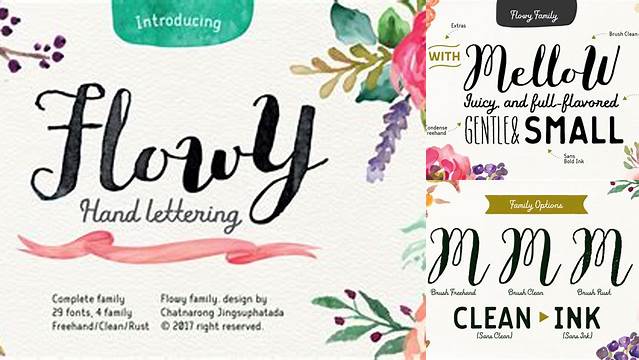
Hey there, font fanatics! đ Are you on the hunt for some seriously gorgeous, freehand-style fonts that just flow? You're in the right place! This article is your ultimate guide to scoring amazing flowy script freehand fonts that you can download without spending a single penny. We're talking about fonts that look like they were penned by a master calligrapher, adding a touch of elegance, personality, and that special handcrafted feel to all your projects. Whether you're designing invitations, crafting social media posts, creating logos, or simply jazzing up your personal documents, these fonts will be your new best friends. We'll explore a variety of styles, from delicate and refined to bold and playful, ensuring you find the perfect match for your creative vision. So, buckle up, and let's dive into the wonderful world of flowy script freehand fonts and how to get them for free! đ
1. The Allure of Flowy Script Freehand Fonts: Why They're So Popular
Alright, let's get real â what is it about flowy script freehand fonts that makes them so darn appealing? Well, guys, these fonts are like the superheroes of the design world. They've got the power to transform the mundane into the magical. The secret sauce? They mimic the beauty and grace of handwritten calligraphy. This adds a personal touch and a sense of authenticity that's hard to replicate with other font types. It's the kind of font that makes people stop and say, âWow, thatâs beautiful!â
Think about it. A perfectly crafted flowy script freehand font can evoke a feeling of elegance, romance, and sophistication. They're often used in wedding invitations, adding a touch of class and formality. On the flip side, they can also be playful and informal, perfect for branding or creating friendly and welcoming designs. The versatility of these fonts is what makes them so popular. They can be adapted to suit a wide range of design projects, from websites and blogs to greeting cards and posters. Theyâre the perfect choice when you want your design to stand out, communicate a personal touch, and make a lasting impression. The organic feel, the unique flourishes, and the way the letters connect make these fonts incredibly eye-catching and memorable. This isnât just about choosing a font; it's about choosing a style, a personality, and a way to connect with your audience on a deeper level. So, as you can see, the popularity of these fonts is totally justified. đ
The Impact of Flowy Script on Branding and Design
Now, let's talk about the real impact of using a flowy script freehand font in your branding and design. In a world saturated with visual content, itâs essential to find ways to stand out. Using a beautiful, flowing script font can be your secret weapon. When incorporated into a logo, a well-chosen font can instantly communicate your brand's personality. Is your brand sophisticated and elegant? A delicate script font can convey this. Aiming for a more playful and approachable image? Opt for a more whimsical, freehand style. The right font can create a strong first impression and set the tone for your entire brand identity.
Beyond logos, these fonts can be incredibly effective in various design applications. Consider website headers, social media graphics, and marketing materials. A touch of script font can add a touch of elegance and intrigue, drawing the eye and encouraging engagement. This is especially important in an age where consumers are bombarded with information. A unique and memorable font can make your brand stand out and help your message resonate with the audience. It's about creating a cohesive and consistent brand identity. By carefully selecting fonts and using them throughout your design, you can establish a recognizable visual style that reflects your brand values and personality. The key is to find the perfect balance. Use the font strategically, not to overwhelm the design. Let the font enhance your message and make it more appealing, not distract from it. Remember, the font should be an extension of your brand, a way to connect with your audience and leave a lasting impression. đ
Then thereâs DaFont, which is a massive font directory where you'll find an overwhelming variety of free fonts, including tons of flowy scripts. Keep in mind that while DaFont offers a vast selection, you should always double-check the license for each font before you use it. Another great option is FontBundles.net, which often has free font bundles, including some incredible script fonts. They also regularly offer limited-time freebies. Keep your eyes peeled for those! Remember to always check the terms of use for each font. Some fonts are free for personal use only, while others are free for both personal and commercial use. Always read the fine print to avoid any copyright issues. Happy hunting!
Navigating Font Licensing: Understanding Free vs. Commercial Use
Okay, guys, let's talk about the nitty-gritty of font licensing. This is super important when you're downloading free flowy script freehand fonts. Understanding the terms of use is key to avoiding any legal headaches. In essence, font licensing dictates how you are allowed to use the font. The two main categories you'll encounter are 'personal use' and 'commercial use.' 'Personal use' means you can use the font for non-commercial projects, such as personal invitations, scrapbooks, or your own personal blog. You usually canât use it for anything that makes you money or generates revenue.
'Commercial use,' on the other hand, means you can use the font for projects that are intended to generate profit, such as logos for your business, marketing materials, or client work. The good news is that many websites offer free fonts that are available for commercial use. But always double-check the license before you use a font in a commercial project! You can usually find the license information on the download page or in the font's documentation. If a font license isn't clear, or if youâre unsure, itâs always best to err on the side of caution and contact the font creator or website for clarification. Paying attention to font licensing protects both you and the font designer. It helps ensure that designers are compensated for their work and that you avoid any potential legal issues down the line.
3. Characteristics of a Great Flowy Script Freehand Font
Alright, what makes a flowy script freehand font truly great? What are the key features that separate the gems from the also-rans? Let's break it down. First and foremost, it's all about readability. Even the most beautiful script font is useless if nobody can actually read it. Look for fonts that strike a balance between artistic flair and easy legibility. The letters should be distinct enough that they can be quickly deciphered, even at smaller sizes.
Readability and Legibility: The Cornerstones of Good Font Design
Readability and legibility are the holy grails of font design. Readability refers to how easily the font allows words and phrases to be recognized, and legibility is about the clarity of individual letters. A great flowy script freehand font needs both! Look for fonts that offer a good contrast between thick and thin strokes. This adds visual interest and makes the letters easier to differentiate. Ensure that the x-height (the height of the lowercase 'x') is not too small, which can make the letters appear cramped and hard to read. Consider the spacing between letters. If the spacing is too tight, the words will appear to run together. If it's too loose, the text may look disjointed. The best fonts have optimized kerning (the spacing between specific letter pairs) to ensure that each word flows beautifully and is easy on the eye. It's also vital to test the font in different sizes and contexts. Does it still look good on a small business card? How about a large poster? Always check to make sure the font performs well across a variety of applications.
Unique Features: Flourishes, Swashes, and Letter Connections
Beyond readability, what other features make these fonts so special? Flowy script freehand fonts often have a host of unique characteristics that add personality and flair. Flourishes are ornamental additions that extend from the letters, adding a touch of elegance and visual interest. Swashes are decorative strokes that can be added to the beginning and end of letters, creating a more dynamic look. Letter connections, where letters are seamlessly joined together, are a key feature of script fonts, contributing to the sense of flow and fluidity. Look for fonts that offer a variety of stylistic alternates. These are different versions of letters, such as alternative 'a's or 'g's, that you can swap out to create a more unique look. Some fonts have OpenType features, which enable automatic ligatures (letter combinations) and contextual alternates, meaning the font automatically changes the appearance of letters based on their surroundings to improve the overall look. Fonts that incorporate these features give you the flexibility to create stunning, customized designs. When choosing, consider what effects these features create. Are you looking for a classic, timeless style or a more modern, edgy look?
4. Designing with Flowy Script Fonts: Best Practices
So, youâve found some amazing free flowy script freehand fonts. Now, how do you use them effectively? Let's get into some design best practices. First things first: choose your font wisely. Consider the overall tone and message of your project. Does the font match the vibe? It might be best to have a clear idea of the feeling you want your project to evoke before you start choosing your fonts. A playful and whimsical font might be perfect for a childrenâs birthday invitation, but it may not be the best choice for a corporate report.
Pairing Flowy Scripts with Complementary Fonts
One of the most crucial aspects of designing with flowy script freehand fonts is pairing them with complementary fonts. A script font, used alone, can sometimes be overwhelming. Pairing it with a sans-serif or a serif font can provide a balance of visual interest and readability. The key is to find fonts that work well together and create a cohesive design. When choosing a pair, consider the contrast between the fonts. Do the styles complement each other? Pairing a delicate script font with a bold sans-serif font can create a striking contrast, making the script text stand out. If you're going for a more subtle look, you might pair a script with a serif font that shares similar characteristics. The font pairing shouldnât compete for attention. The secondary font is often used for headlines, body text, and supporting information. It should be legible and easy to read, creating a clear hierarchy of information. There are loads of resources online that can help you find perfect font pairings. Check out websites like Canva, which suggest font pairings. These are usually based on design principles such as contrast, harmony, and balance. Ultimately, experimenting with different combinations is key to finding the perfect match. Play around with various fonts, and see what works best for your specific project.
Avoiding Common Design Mistakes with Script Fonts
Letâs discuss some common design mistakes to avoid. One big no-no is overusing your flowy script freehand font. These fonts are fantastic, but they can be hard to read if used in large blocks of text. They are best used for headlines, titles, short quotes, or emphasis. Another mistake is choosing a font that is hard to read at smaller sizes. This is why testing the font in various sizes and contexts is crucial before using it in a project. Always make sure your script font is legible. Always test the font in different color combinations. Some fonts are easier to read on certain backgrounds. Ensure there is enough contrast between the text and the background to make it easily readable. Avoid overly ornate fonts that are difficult to read. Keep it simple and clean. It's also important to ensure that you properly use kerning and tracking. If the letters are squished together or too far apart, the text will look unprofessional. Pay attention to these details! Remember, simplicity is key. Let the font enhance your message, rather than overshadowing it. By avoiding these common mistakes, you can ensure your designs look professional and polished. đ
5. Installing and Using Free Flowy Script Fonts on Your Devices
So, you've downloaded some awesome free flowy script freehand fonts! Now, how do you actually get them onto your computer and start using them in your projects? Donât worry, itâs easier than you might think. The process is slightly different depending on your operating system (Windows or Mac), but the general steps are similar.
Installing Fonts on Windows and macOS
For Windows users, after downloading a font, you'll usually receive a zipped file. You'll need to extract the font files from the zip folder. Once extracted, the font files will typically be in either .ttf (TrueType Font) or .otf (OpenType Font) format. Right-click on the font file and select âInstall.â The font will then be installed in your system, and you'll be able to use it in any applications that support fonts. On macOS, the process is similar. Double-click on the font file to open it with Font Book. Then, click the âInstall Fontâ button. Alternatively, you can drag and drop the font file into the Font Book application.
Integrating Fonts into Design Software (Photoshop, Canva, etc.)
Once your flowy script freehand font is installed on your system, you can start using it in your favorite design software. When you open the software (like Adobe Photoshop, Illustrator, or Canva), the new font should automatically appear in the font menu. If you don't see the font right away, try restarting the software. If it still doesnât appear, make sure the font is correctly installed on your system. In Photoshop, you'll find the font selection in the character panel. In Canva, youâll find it in the text toolbar. Just select the text you want to change and choose your new font from the dropdown menu. Remember, some fonts come with extra features such as ligatures and swashes. Check your fontâs documentation or the softwareâs documentation on how to access these special features. By following these steps, you'll have your amazing new fonts up and running in no time! â¨
6. Tips and Tricks for Choosing the Perfect Font
Alright, you've got the lowdown on where to find free fonts, how to install them, and some basic design principles. Now, let's talk about some extra tips and tricks to help you choose the perfect flowy script freehand font for your project. Choosing the right font is a critical step in ensuring your design conveys the right message and appeals to your target audience.
Considering the Project's Tone and Target Audience
When selecting a flowy script freehand font, always consider the tone of your project. Is it meant to be elegant and sophisticated? Or more casual and fun? A delicate script font might be perfect for an invitation to a black-tie event. A bolder, more playful font may be perfect for a childrenâs birthday party. Consider your target audience! What kind of fonts do they respond to? Are you trying to reach a younger demographic? Perhaps a modern, trendy font would work. If your audience appreciates tradition, a classic script font might be a better fit. Also, think about the overall message you want to convey. Does the font reflect your brand's values and personality? Does it support the content of the text? The font should enhance the message, not distract from it. Make a mood board to start the process! Collect images, colors, and fonts that you find inspiring. The mood board can serve as a visual reference that helps you zero in on the perfect font.
Testing and Previewing Fonts Before You Commit
Before you commit to using a flowy script freehand font in your project, always test and preview it! The best way to choose a font is to see it in action. Try typing out headlines, taglines, and other important text from your project using different fonts. How does the font look in different sizes? Does it maintain its readability at smaller sizes? How does it look when paired with other fonts? There are tons of online tools that make testing and previewing fonts easy. You can upload your text, experiment with different font sizes and styles, and see how the font looks on different backgrounds. This allows you to see how a particular font will look in the context of your design. It's important to check for any issues, such as poor letter spacing or illegible characters. Look out for special features, like ligatures, and make sure they're displayed correctly. Ultimately, it's about trusting your eye and choosing a font that feels right. Does it look good? Does it communicate the message you want to convey? Taking the time to test and preview the font before you commit will save you time and effort down the line.
7. Beyond the Basics: Advanced Techniques with Flowy Script Fonts
So, youâre getting comfortable with using flowy script freehand fonts. Awesome! Now, letâs explore some advanced techniques to take your designs to the next level. These techniques will help you use the fonts more creatively and effectively, adding a professional touch to your projects.
Customizing Your Font: Kerning, Tracking, and Leading
Let's dive into the details of font customization. Kerning, tracking, and leading are three key elements in typography. Kerning is the process of adjusting the space between individual letter pairs. Some letter combinations, like 'AV' or 'Wa,' may appear to have too much or too little space between them. Adjusting the kerning of these combinations will create a more balanced and visually appealing text. Tracking refers to the overall letter spacing across a block of text. Adjusting the tracking can affect the density and appearance of the text, making it appear tighter or more spacious. Leading, also known as line spacing, is the vertical space between lines of text. Adjusting the leading can improve readability and visual appeal. Experimenting with these elements can significantly improve the appearance of your text. Using the kerning, tracking, and leading to make fine-tune adjustments ensures that your flowy script freehand font looks perfect. Itâs about optimizing the visual appearance and creating a harmonious design.
Creating Unique Effects: Text Outlines, Shadows, and More
Letâs have some fun with special effects! Using text outlines, shadows, and other special effects with your flowy script freehand font can create some pretty impressive designs. Text outlines involve adding a border around your text, which can help it stand out against a busy background. Text shadows add a sense of depth and dimension. Both effects can be applied to your design software, like Photoshop or Canva. In Photoshop, you can use layer styles to easily add effects like outlines and shadows. In Canva, you can use the text effects tool to customize your text. Experiment with different colors, sizes, and opacity to achieve a unique look. Consider how the effect affects the overall design. Does it complement the font and the design? Does it enhance the message? Adding some simple text effects can create visual interest, making your designs more engaging. It's all about experimenting, creating a design that's unique and eye-catching. â¨
8. Troubleshooting Common Issues with Free Flowy Script Fonts
Even with the best free flowy script freehand fonts, you might occasionally run into some issues. Don't worry, guys! It's all part of the design process. Let's troubleshoot some of the common problems you might encounter and how to fix them.
Font Not Displaying Correctly: Fixes and Solutions
One of the most common issues is that your font might not be displaying correctly. This can be super frustrating, but here's how to fix it. First, make sure the font is correctly installed on your system. Double-check that it is in the font folder and that your design software recognizes it. If the font is still not appearing, try restarting your design software or computer. This often clears up minor glitches. Another possible cause is compatibility issues. Some older design software might not support newer font formats. Ensure that your software is up-to-date and compatible with the font you're trying to use. If you're using a web design, there might be a problem with the font files not being correctly linked in your code. Double-check your CSS and ensure the font file path is correct. Lastly, make sure youâre not using a font thatâs been deactivated or is conflicting with another font installed on your system. By taking these steps, you can fix most font display issues!
Dealing with Missing Glyphs or Unsupported Characters
Another issue you may encounter is missing glyphs or unsupported characters. This happens when the font doesn't include certain characters you need, like special symbols, foreign language characters, or even some common punctuation marks. If this happens, the software will often display a placeholder character instead. The best solution is to find a font with better character support. Before choosing a font, preview it in your design software. Make sure all characters you need are displayed correctly. If you really love a font that's missing certain characters, you may have to use a different font for those characters. You can also check if there is a different font version that has better character support. Sometimes, there might be a problem with the software settings. Ensure your software is set to support the correct character encoding, such as UTF-8. You can also contact the font designer or provider. If you've discovered a missing character, they may release an updated version of the font with those characters included.
9. Staying Up-to-Date with Font Trends
Alright, letâs talk about staying on top of the latest font trends. The world of typography is constantly evolving, and itâs important to stay informed about whatâs new and exciting. Staying up-to-date ensures that your designs look current and appeal to your target audience.
Following Font Designers and Design Blogs for Inspiration
One of the best ways to stay up-to-date with font trends is to follow font designers and design blogs. Many font designers regularly release new fonts, share insights into their design process, and provide information about trends. Following these designers on social media and subscribing to their newsletters gives you early access to new fonts. Check out blogs like Creative Market and Behance, which often feature trending fonts and design resources. Other design blogs and websites regularly showcase the latest font trends. By reading these blogs, you can stay informed about new font styles, design techniques, and industry insights. Subscribe to design magazines or newsletters. These provide in-depth coverage of typography and graphic design. Following font designers and design blogs gives you a steady stream of inspiration and information, ensuring that your designs are always on-trend.
Exploring Current Font Styles and Popularity in Design
Let's look at whatâs trending right now. Flowy script freehand fonts are incredibly popular! Keep an eye on what other designers are using. Look at websites, social media, and print materials, and see what fonts are being used in successful designs. Pay attention to the details of the fonts. Observe what characteristics make these fonts popular and try to incorporate similar elements into your designs. You can even check out websites and platforms that provide trend reports, which often include font recommendations. Also, don't be afraid to experiment with new font combinations. Try pairing different script fonts with various sans-serif fonts or serifs. Experimenting with different styles will help you stay on top of current font trends and find new combinations for your designs. Try to find a balance between trends and your own design preferences. The key is to stay informed, experiment, and choose fonts that reflect your style. đ
10. Licensing and Legal Considerations for Free Fonts